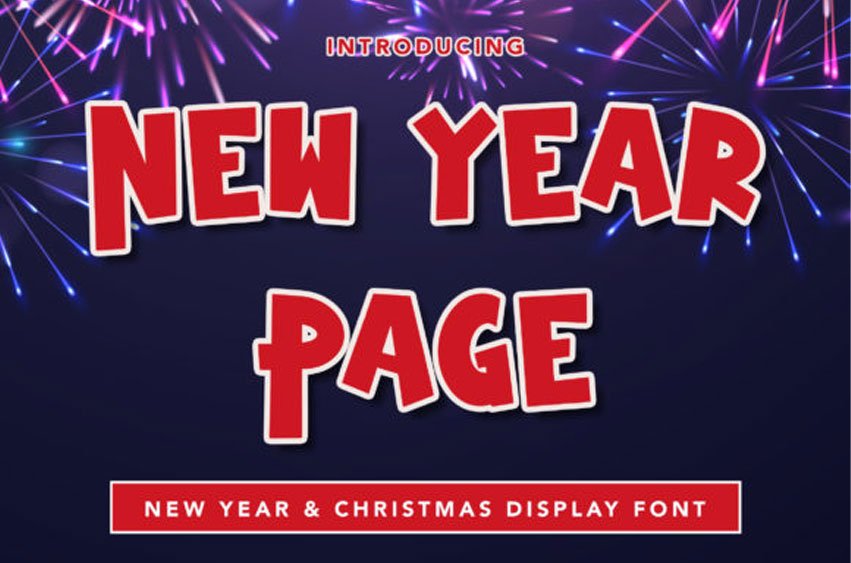
New Year Page Font is a display font with distinctive handwritten characters perfect for branding projects, logos, wedding designs, media posts, advertisements, product packaging, product designs, labels, photography, watermarks, invitations, stationery, and any project that needs a powerful touch.